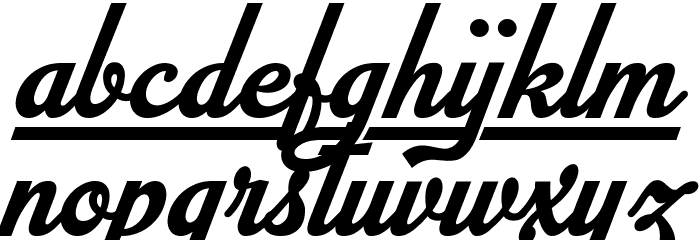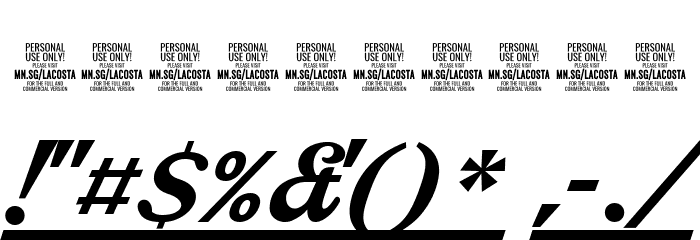
Lacosta Line PERSONAL USE ONLY Font
This font features an elegant and flowing script style, characterized by its smooth, cursive lines and decorative flourishes. The uppercase letters are particularly ornate, with intricate loops and swirls that add a sense of sophistication and grace. The lowercase letters maintain a consistent flow, enhancing readability while retaining a stylish appearance. The numerals and special characters are designed to complement the overall aesthetic, ensuring a cohesive look across all text elements. This font is ideal for projects that require a touch of elegance and class, such as wedding invitations, luxury branding, or high-end product packaging.
An elegant script font with flowing cursive lines and decorative flourishes.
- Proposed Projects: Wedding invitations, luxury branding, high-end product packaging, elegant stationery.
- Overall Style: Elegant, Decorative
- Use Case: Logos, Invitations, Branding